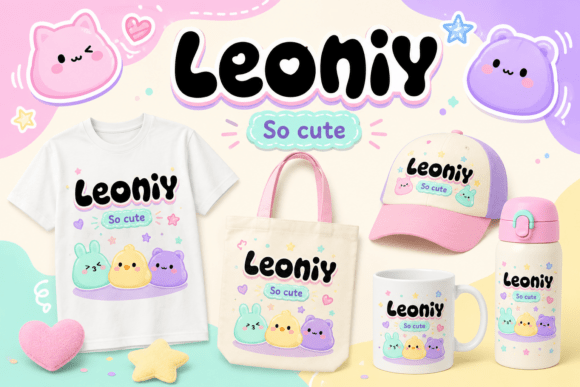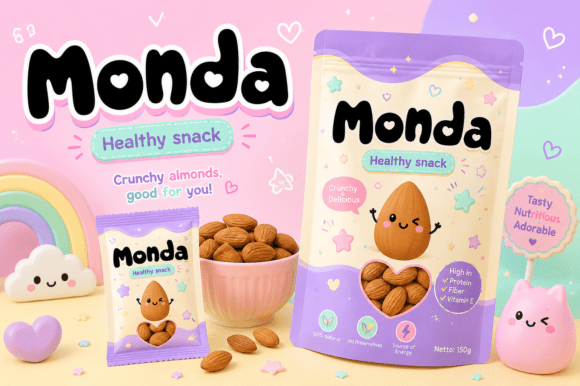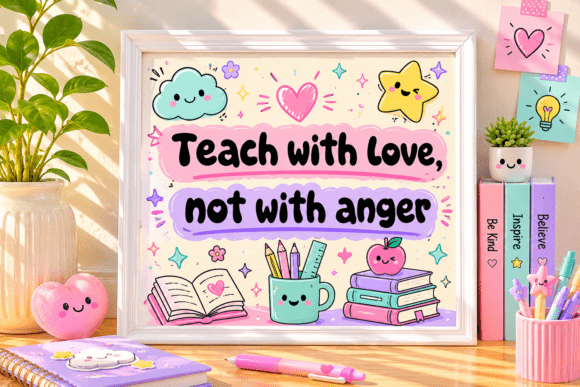
Introducing Chuishie Font: The Embodiment of Youthful Zest and Playful Charm
In the realm of typography, few fonts manage to capture the essence of joy and playfulness as effectively as Chuishie. This bubble display font is a vibrant and lively addition to any creative project, boasting a merry disposition that is impossible to ignore. With its soft, squishy forms and sprightly kawaii doodles, Chuishie is the perfect choice for designers and crafters looking to infuse their work with a sense of youthful zest and whimsy.
The Inspiration Behind Chuishie
Chuishie’s design draws inspiration from the world of kawaii art, characterized by its emphasis on cuteness and playfulness. The font’s rounded letters and smooth curves are adorned with heart-shaped counters, giving it a distinctive and charming appearance. This unique blend of organic shapes and imaginative details makes Chuishie an excellent choice for a wide range of applications, from children’s products and toy branding to vibrant snack packaging and adorable merchandise designs.
Key Features of Chuishie Font
- Delightfully Rounded Letters: Chuishie’s letters are designed with a focus on rounded shapes, giving the font its distinctive bubbly appearance.
- Smooth Curves: The font’s smooth curves add to its playful and lively feel, making it perfect for designs that require a sense of movement and energy.
- Heart-Shaped Counters: The heart-shaped counters in Chuishie add a touch of whimsy and charm, setting it apart from other display fonts.
- Accentuated and Bold Form: Chuishie’s bold and accentuated form makes it highly readable, even at larger sizes.
- Hand-Drawn Look: The font’s hand-drawn appearance gives it a unique and organic feel, making it perfect for designs that require a personal touch.
Applications for Chuishie Font
Chuishie’s versatility and charm make it an excellent choice for a wide range of applications, including:
- Children’s Products: Chuishie is perfect for children’s books, educational materials, and toys that require a playful and engaging font.
- Playful Toy Branding: The font’s bubbly appearance and lively feel make it an excellent choice for toy branding and packaging.
- Vibrant Snack Packaging: Chuishie’s bright and cheerful appearance makes it perfect for snack packaging that requires a fun and attention-grabbing font.
- Adorable Merchandise Designs: The font’s charming appearance and whimsical feel make it an excellent choice for merchandise designs, such as stickers, t-shirts, and other novelty items.
Why Choose Chuishie Font?
Chuishie font offers a unique combination of playfulness, charm, and readability, making it an excellent choice for designers and crafters looking to add a touch of joy to their creative projects. With its:
- Youthful and Playful Disposition: Chuishie is the perfect choice for designs that require a sense of energy and playfulness.
- Optimal Readability: The font’s bold and accentuated form ensures optimal readability, even at larger sizes.
- Organic Shapes and Imaginative Details: Chuishie’s unique blend of organic shapes and imaginative details makes it an excellent choice for designs that require a personal touch.
In conclusion, Chuishie font is a vibrant and lively addition to any creative project, offering a unique combination of playfulness, charm, and readability. Its youthful and playful disposition, optimal readability, and organic shapes make it an excellent choice for designers and crafters looking to add a touch of joy to their work.